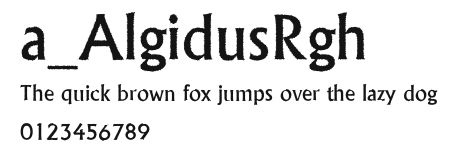
a_AlgidusRgh Preview
• Font Name: a_AlgidusRgh
• Font ID: ArsenalCompany: a_AlgidusRough: 1998
• Full Font Name: a_AlgidusRgh
• Version: 001.002
• PostScript Name: a_AlgidusRgh
• Character Count: 308
• Designer: W.Chufarofsky & M.Slutsker
About a_AlgidusRgh.ttf
a_AlgidusRgh.ttf is a modern, elegant sans-serif font designed for ultimate readability and visual harmony. Perfect for branding, headlines, web design, and print materials.